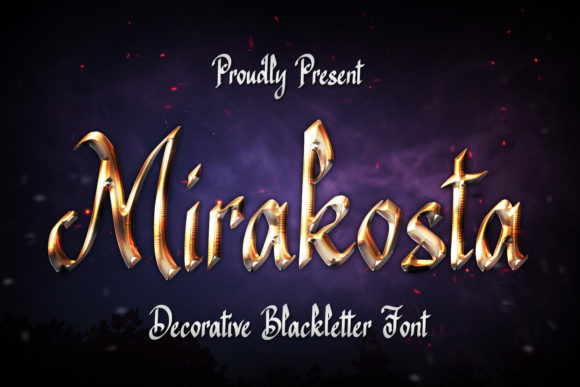
Introducing Mirakosta Font, a stunning blackletter font that captures the essence of vintage signs and retro style labels. This font is a true masterpiece, meticulously crafted to add an air of nostalgia and charm to your designs.
Mirakosta Font is more than just a font; it's a journey through time, a connection to the past that brings a touch of timeless elegance to your creations. Its unique character set, inspired by the beauty of classic signage, adds an authentic vintage touch that will make your designs stand out from the crowd.
Immerse yourself in the world of Mirakosta Font, where creativity knows no bounds. Whether you're designing logos, posters, branding materials, or any other visual project, Mirakosta Font will elevate your work to new heights. Its versatility and timeless charm make it the perfect choice for designers of all levels, from beginners to seasoned professionals.
With Mirakosta Font, you'll have the power to transform ordinary designs into extraordinary works of art. Its intricate details and captivating glyphs will draw your audience in, creating a lasting impression that will leave them wanting more.